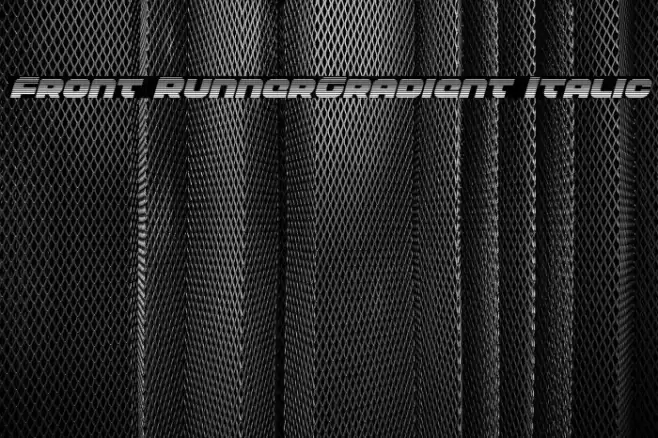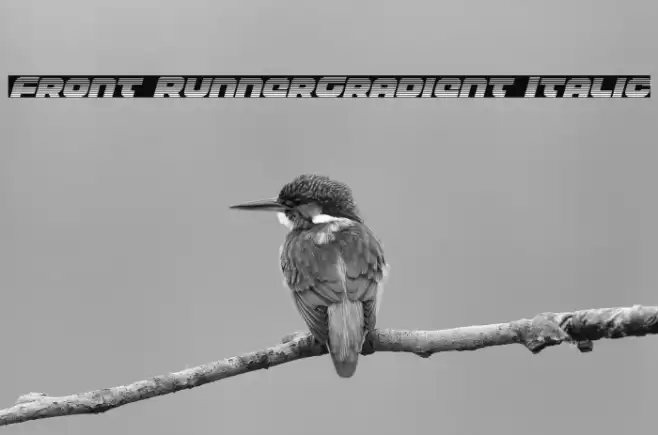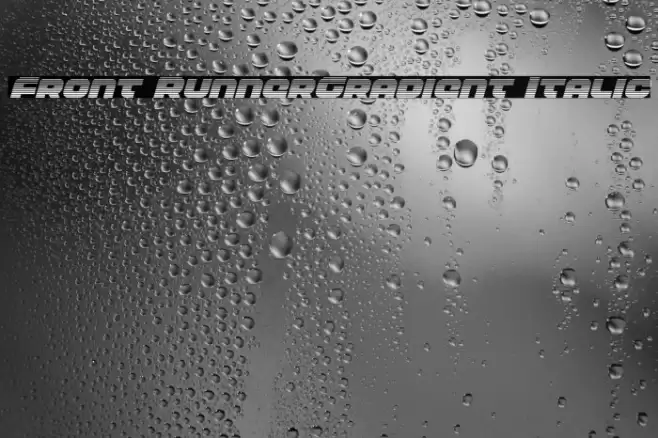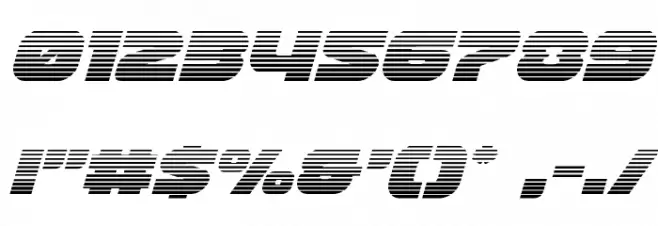
Front RunnerGradient Italic Font
Front RunnerGradient Italic Description
This font features a bold, italicized style with a distinctive gradient effect created by horizontal lines running through each character. The uppercase and lowercase letters, as well as numbers and special characters, all share this unique striped pattern, giving the font a dynamic and futuristic appearance. The characters are wide and have a strong presence, making them suitable for attention-grabbing designs. The italic slant adds a sense of motion and speed, enhancing its modern and edgy look.
A bold, italic font with a gradient effect from horizontal stripes, offering a dynamic and futuristic style from Uncategorized fonts.
- Proposed Projects: Ideal for sports branding, automotive designs, tech-related projects, and any creative work requiring a modern, energetic typeface.
- Width: Expanded